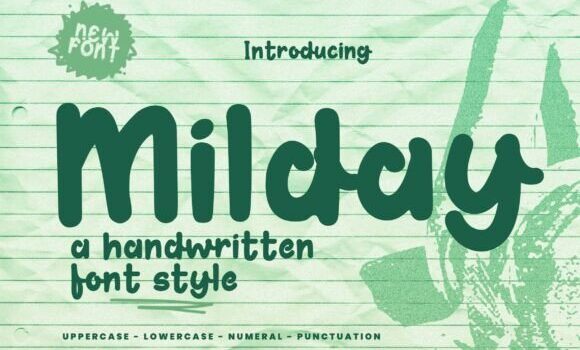
milday
Milday Font – Free Download Introduction to Milday Font Milday is a sweet and friendly handwritten font. 📸 Preview Gallery 6 images 📌 Product Name Milday Font 👤 Author Rasiorise Studio 📂 Category Explore ⬇️ Download Milday Font FREE Free